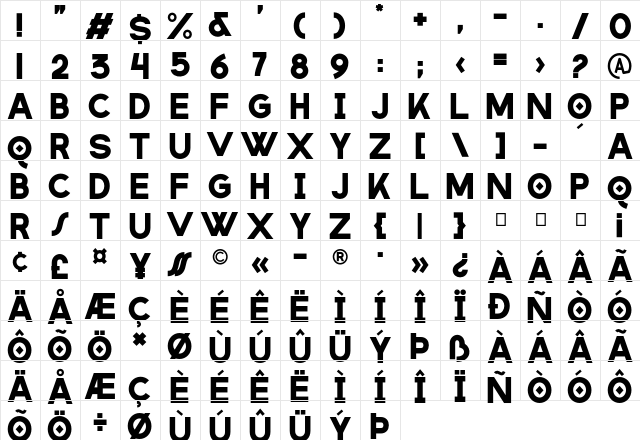
marinford af
Design Context for marinford Typeface
marinford takes a measured approach to typography — its balanced proportions and neutral character make it a reliable workhorse for both digital and print work.